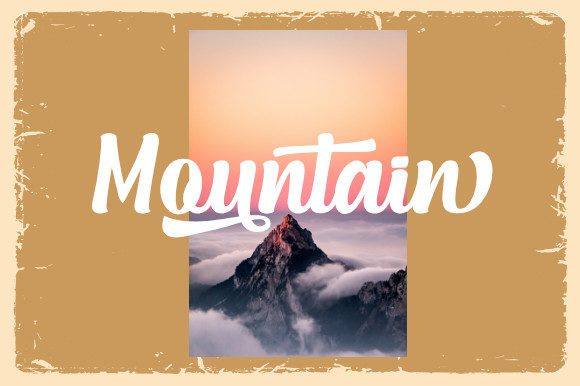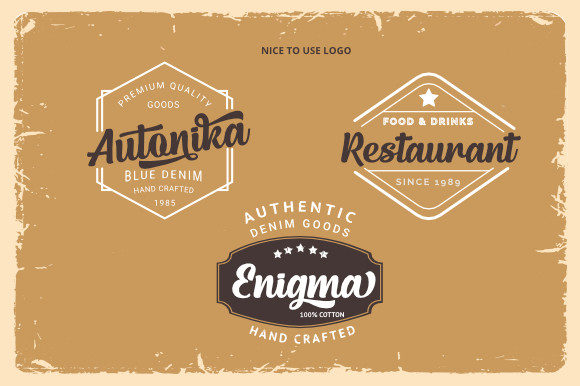
Autentica Font
db-ku.com - Script & Handwritten -- Autentica is a gorgeous and bold handwritten font, crafted to give your headlines and logotype projects a stylish touch. This font reads as strong, confident, and dynamic and can add tons of nostalgic character to your designs. Autentica is PUA encoded which means you can access all of the glyphs and swashes with ease!